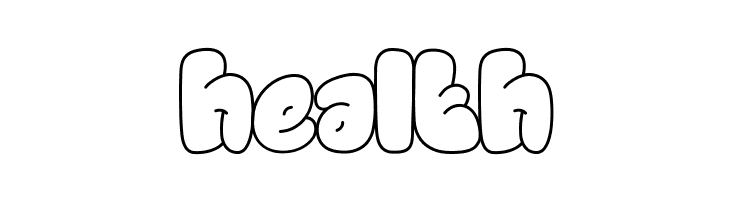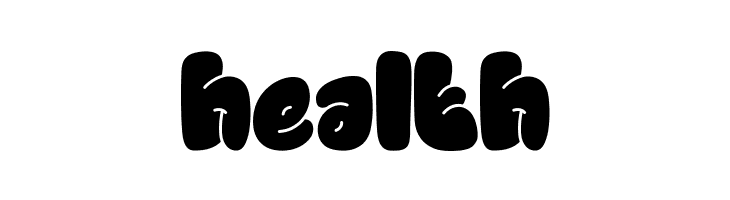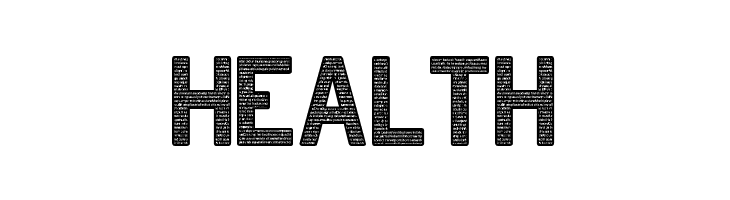
A bold, decorative font with sharp angles and a modern flair.
A bold, decorative font with fluid, enclosed characters.
A bold, playful font with quirky, rounded characters and a whimsical style.
A bold, edgy font with sharp angles and a hand-drawn appearance.
A bold, fingerprint-themed font with a modern and artistic style.
A geometric, futuristic font with angular, interconnected letterforms.
A playful, handwritten font with a whimsical and informal style.
A bold, modern font with a sleek, condensed design and angular geometric shapes.
A bold, italic, and modern font with a dynamic, futuristic style.
A bold, modern, and condensed font with a dynamic slant and geometric shapes.
A modern, dynamic font with bold, angular characters and a futuristic style.
A bold, futuristic font with slanted, geometric characters.
A bold, outlined font with a futuristic and sporty aesthetic.
A bold, angular, and futuristic font with a compact design.
A bold, futuristic font with angular, slanted characters.
A bold, futuristic font with slanted characters and a dynamic style.
A bold, 3D outlined font with a futuristic and dynamic style.
A bold, angular font with a futuristic and geometric design.
An edgy, gothic-inspired font with sharp, angular lines and dramatic style.
A bold, edgy font with sharp, angular lines and a gothic influence.
An abstract, decorative font with swirling, interconnected lines and a calligraphic flair.
An abstract, calligraphic font with fluid, artistic strokes.
An abstract, artistic font with fluid, hand-drawn characters.
A playful, hand-drawn style with elongated, irregular letterforms.
A playful, hand-drawn font with rounded, informal characters.